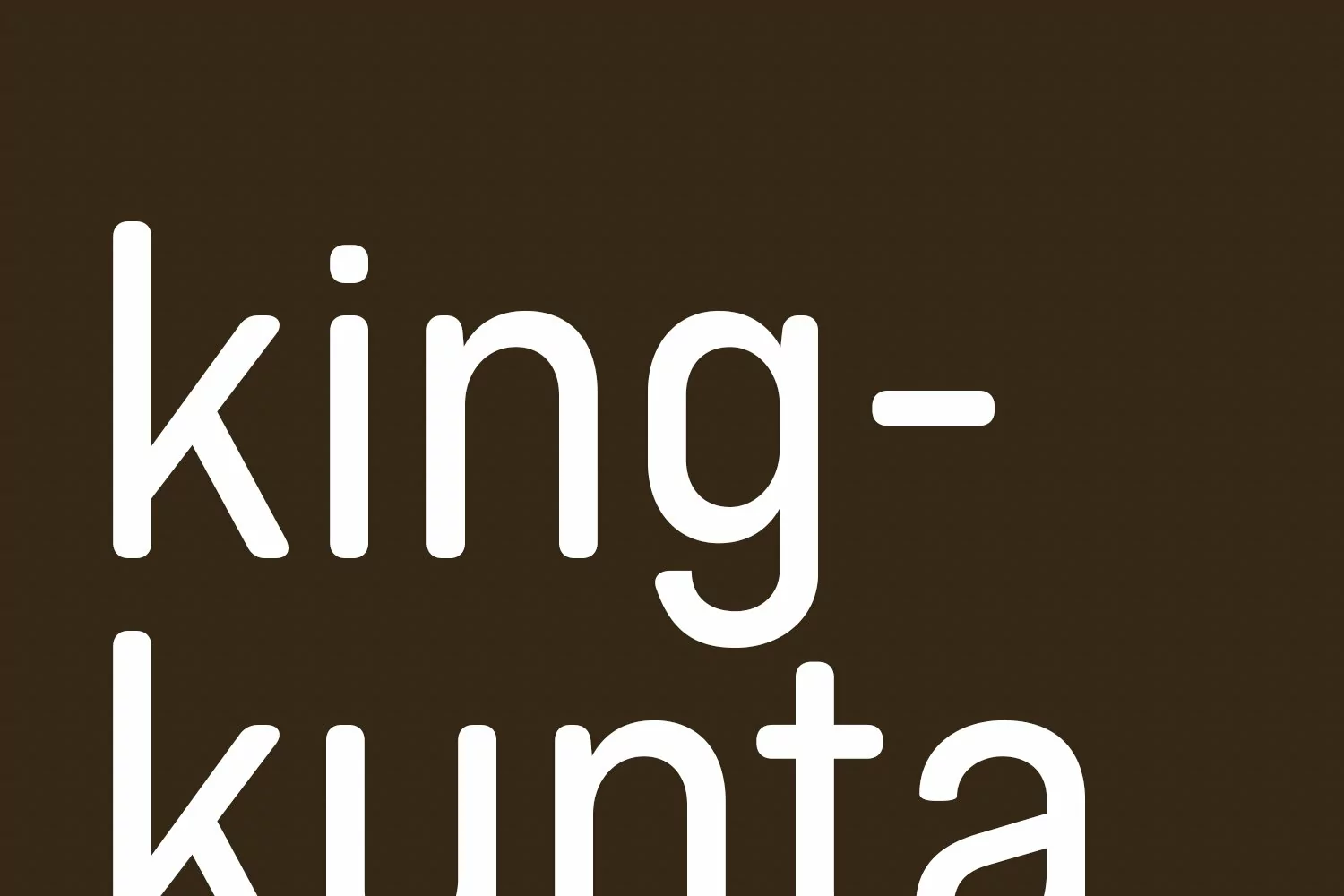
Colatera Soft Round is a minimalist sans serif font. With regular rounded edge stroke, fun character. To give you an extra creative work. Colatera font support multilingual more than 100+ language. This font is good for logo design, Social media, Movie Titles, Books Titles, a short text even a long text letter and good for your secondary text font with script typeface. Make a stunning work with Colatera font.